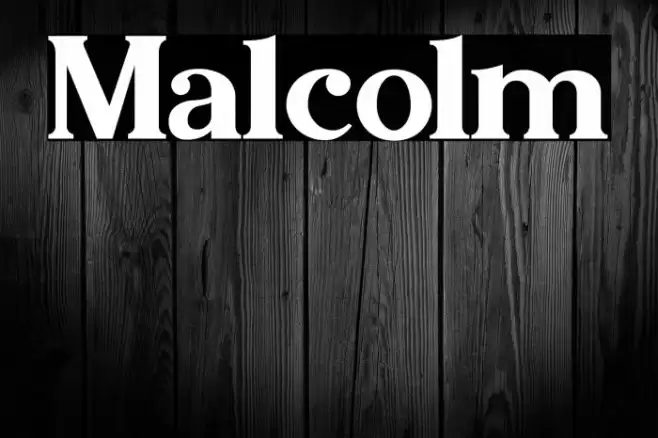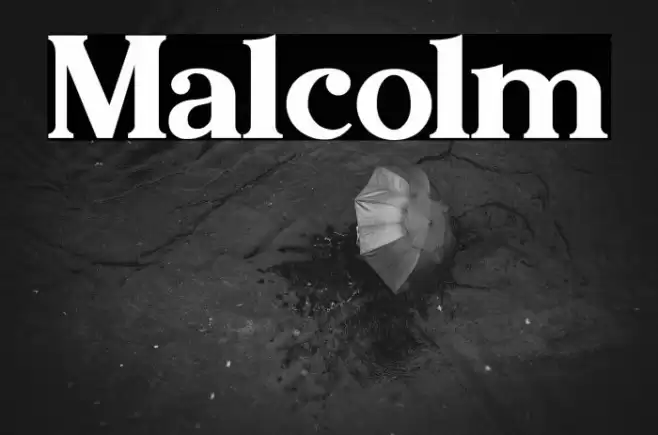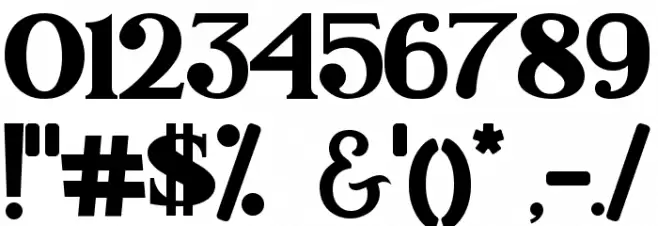
Malcolm Font
Malcolm Description
This font features a bold and dramatic serif style with high contrast between thick and thin strokes, giving it a strong and authoritative presence. The uppercase letters are particularly striking, with sharp serifs and a slightly condensed form, while the lowercase letters maintain a consistent style with rounded edges and elegant curves. The numerals are equally bold, ensuring readability and impact. Special characters are designed with the same attention to detail, making them suitable for a variety of uses. The overall design is both classic and modern, making it versatile for different design needs.
A bold, high-contrast serif font with a classic yet modern appeal from Uncategorized fonts.
- Proposed Projects: Ideal for headlines, branding, editorial design, and logo creation.
- Overall Style: Classic